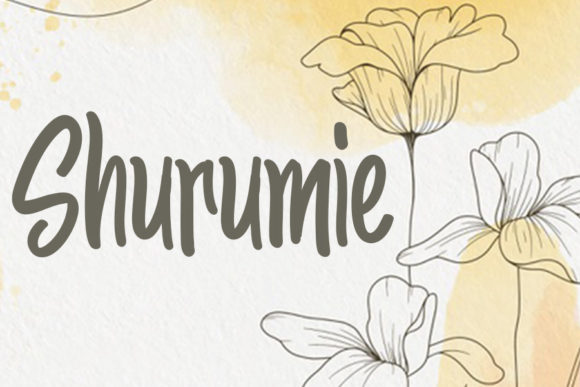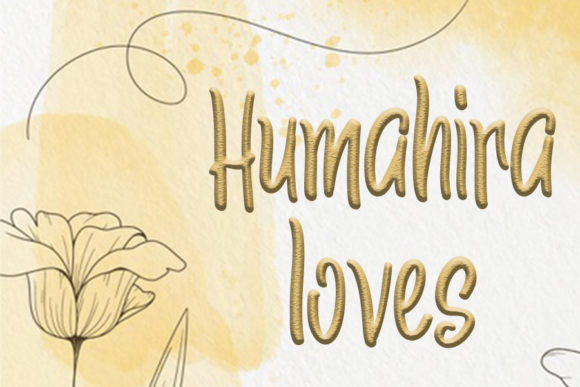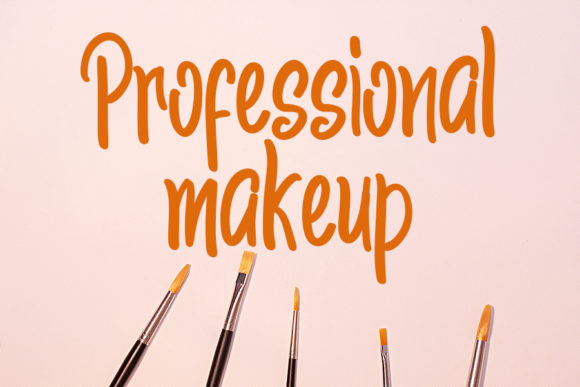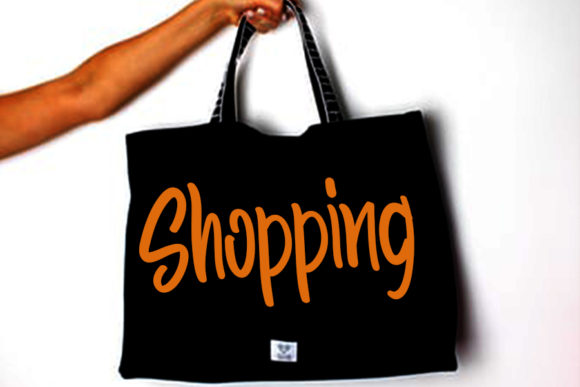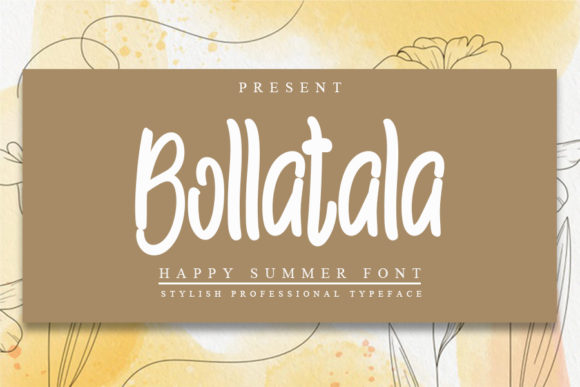
Bollatala Font: The Sweet and Friendly Handwritten Font for Your Creative Projects
Are you a designer, crafter, or DIY enthusiast looking for a font that can add a personal touch to your creative projects? Look no further than Bollatala Font! This sweet and friendly handwritten font is perfect for a wide range of designs, from invitations and greeting cards to logos, branding, and packaging. In this article, we’ll explore the unique features of Bollatala Font and how it can elevate your designs to the next level.
What is Bollatala Font?
Bollatala Font is a beautiful, handwritten font that exudes warmth and friendliness. Its natural and unique style makes it incredibly versatile, allowing you to use it in a variety of creative projects. Whether you’re designing a rustic wedding invitation, a playful kids’ party flyer, or a professional logo, Bollatala Font is the perfect choice.
Key Features of Bollatala Font
- Handwritten style: Bollatala Font has a genuine, handwritten look that adds a personal touch to any design.
- Unique and distinctive: The font’s natural and unique style sets it apart from more traditional fonts, making it perfect for designers who want to stand out.
- Versatile: Bollatala Font can be used in a wide range of designs, from formal to informal, and from digital to print.
- Easy to read: Despite its handwritten style, Bollatala Font is incredibly legible, making it perfect for body text and headings.
How to Use Bollatala Font in Your Designs
Bollatala Font is incredibly easy to use, and its versatility makes it suitable for a wide range of design projects. Here are some ideas to get you started:
- Wedding invitations and stationery: Add a romantic touch to your wedding invitations, save-the-dates, and stationery with Bollatala Font.
- Kids’ party decorations: Create playful and fun party decorations, such as invitations, flyers, and banners, with Bollatala Font.
- Logos and branding: Use Bollatala Font to create a unique and memorable logo for your business or brand.
- Packaging and labels: Add a personal touch to your product packaging and labels with Bollatala Font.
Tips for Pairing Bollatala Font with Other Fonts
Pairing Bollatala Font with other fonts can create a unique and visually appealing design. Here are some tips for pairing Bollatala Font with other fonts:
- Pair with a sans-serif font: Pair Bollatala Font with a clean and modern sans-serif font, such as Arial or Helvetica, to create a beautiful contrast.
- Pair with a script font: Pair Bollatala Font with another script font, such as Pacifico or Great Vibes, to create a elegant and sophisticated design.
- Experiment with font sizes: Experiment with different font sizes to create visual interest and hierarchy in your design.